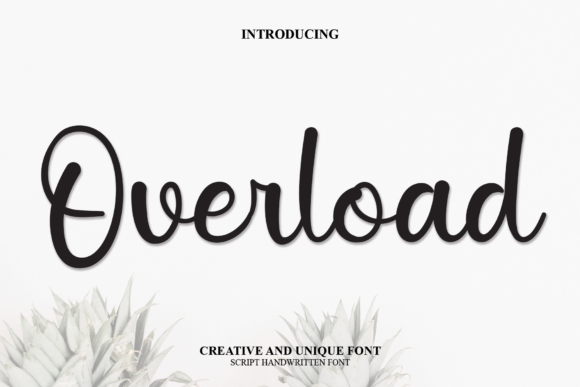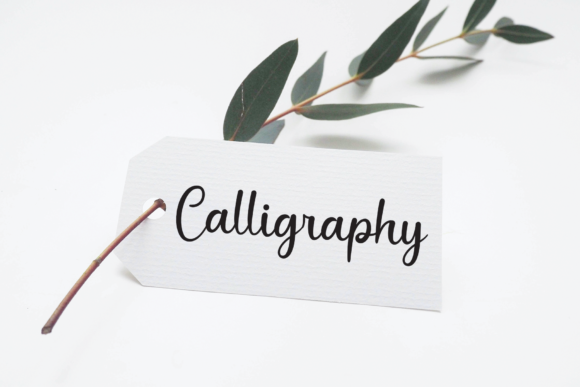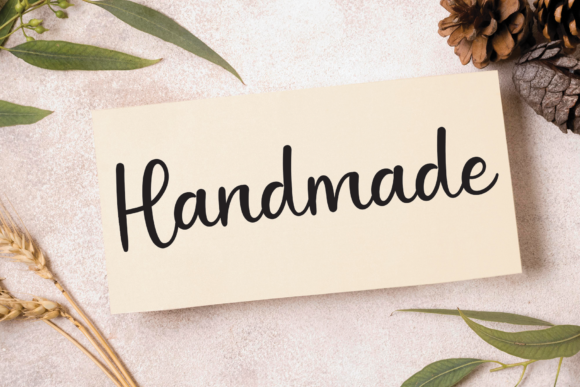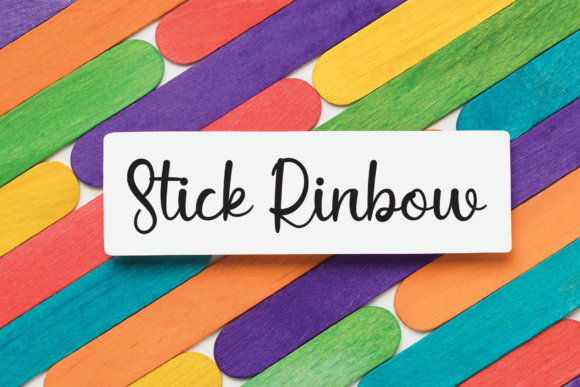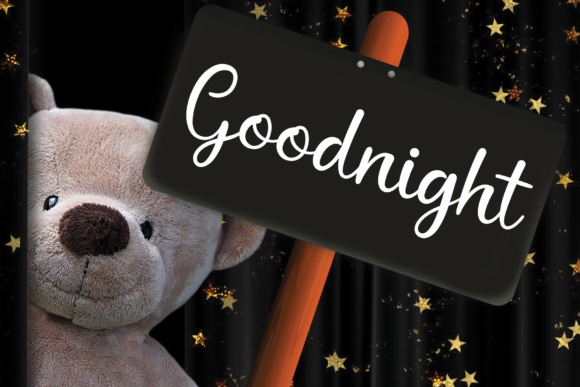
Overload Font
About Overload Font
Introducing a script font that encapsulates sweetness, romance, and beauty, adorned with captivating curves in every letter. Not only does this font radiate visual appeal, but it also boasts PUA coding, ensuring effortless access to an extensive array of glyphs and elegant sweeps with utmost convenience.
The inherent sweetness of this script font makes it an ideal choice for projects that demand a romantic and beautiful aesthetic. Whether crafting enchanting wedding invitations, expressing tender sentiments in love notes, or infusing any creative piece with a touch of sentimental elegance, the delicate curves of each letter enhance the overall charm, creating an atmosphere of timeless romance.
One standout feature of this font is its PUA coding, offering designers a user-friendly experience for seamless exploration of its diverse elements. With the ability to easily access and integrate various glyphs and graceful sweeps, designers of all levels can infuse their projects with personalized and creative touches, adding a bespoke flair to their work.
The beautiful curves within each letter contribute to the font’s overall allure, making it a versatile choice for a wide range of creative endeavors. Whether applied to product packaging, branding, or social media graphics, the fluidity of the script imparts a sense of sophistication and beauty to the text, enhancing the overall visual impact.
This font’s romantic undertones make it an ideal choice for expressing emotions and creating visually stunning pieces that resonate with heartfelt sentiments. The harmonious blend of sweetness, romance, and beauty within this script font ensures that it not only meets but exceeds the expectations of designers seeking a font that exudes a sense of timeless allure.
In summary, this script font is more than a typographic tool; it’s an invitation to infuse your designs with sweetness, romance, and timeless beauty. With beautiful curves in each letter and PUA coding for easy access to a myriad of glyphs, this font invites exploration and creativity, adding an enchanting touch to every project.